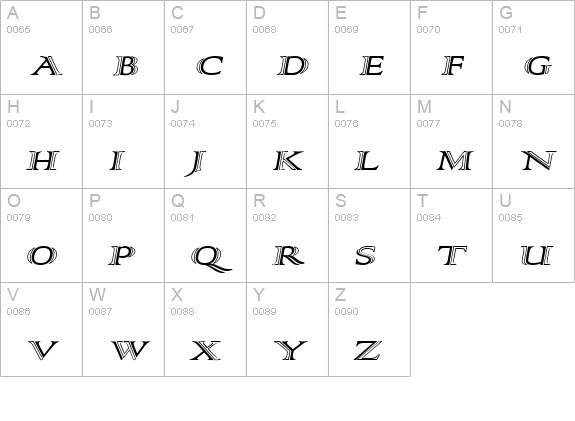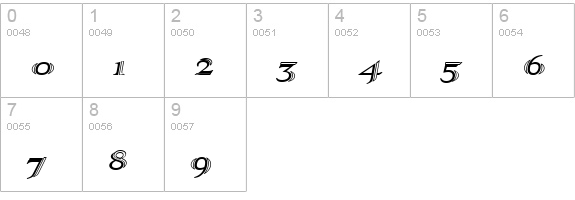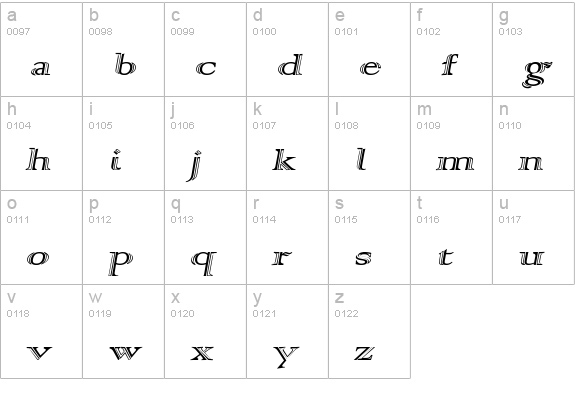
AlphaRev Font Details
AlphaRev font is a striking and modern typeface that exudes sophistication and creativity. With its sleek lines and sharp edges, this font is perfect for making a bold statement in your designs. Whether you're creating a logo, poster, or website, AlphaRev font will add a touch of elegance and style. The best part? AlphaRev font is completely free to download at FontsMarket.com. This means you can use this premium font in your projects without any cost, making it a valuable resource for designers and creators alike. Don't miss out on the opportunity to elevate your designs with the sleek and stylish AlphaRev font, available for free at FontsMarket.com.